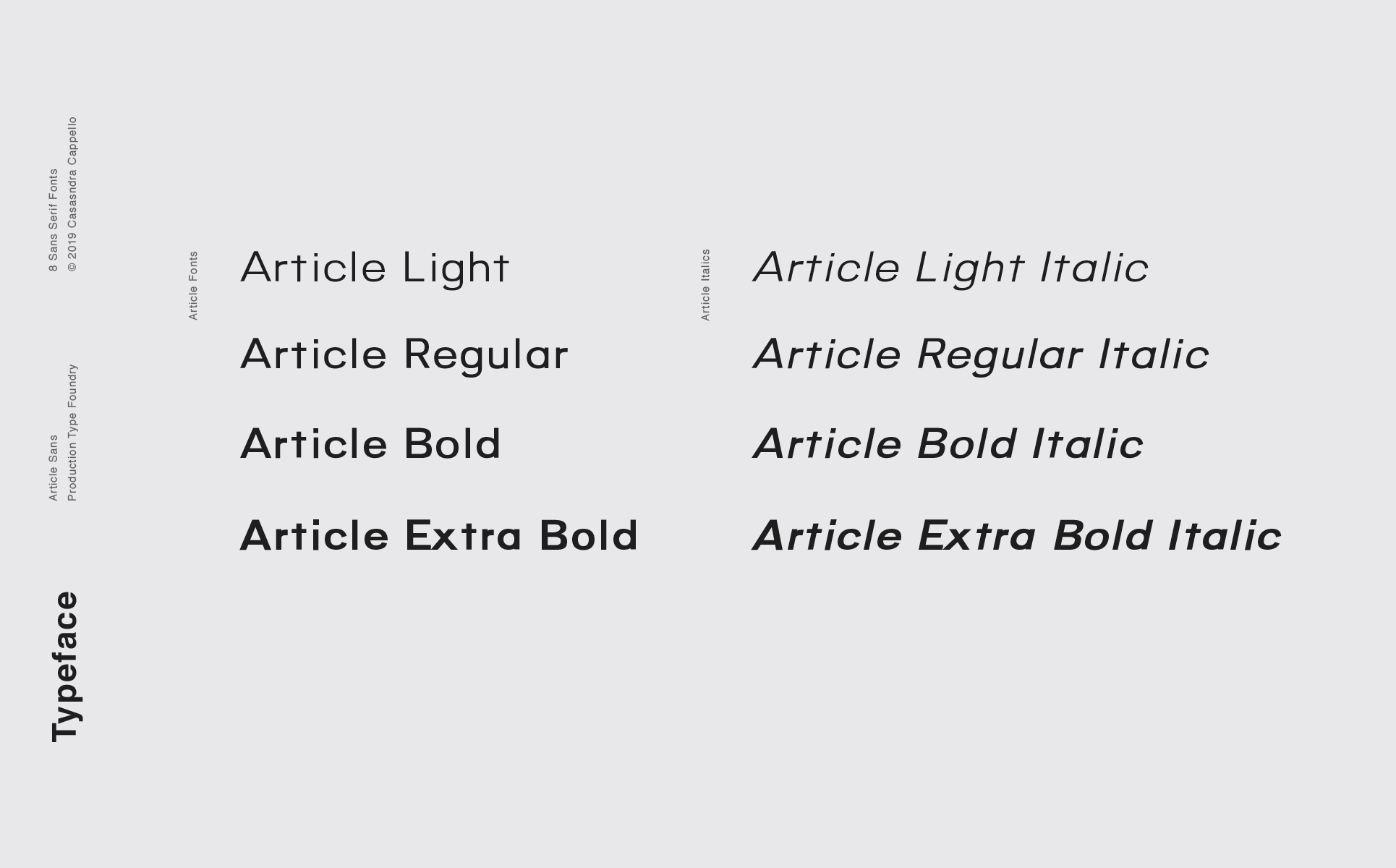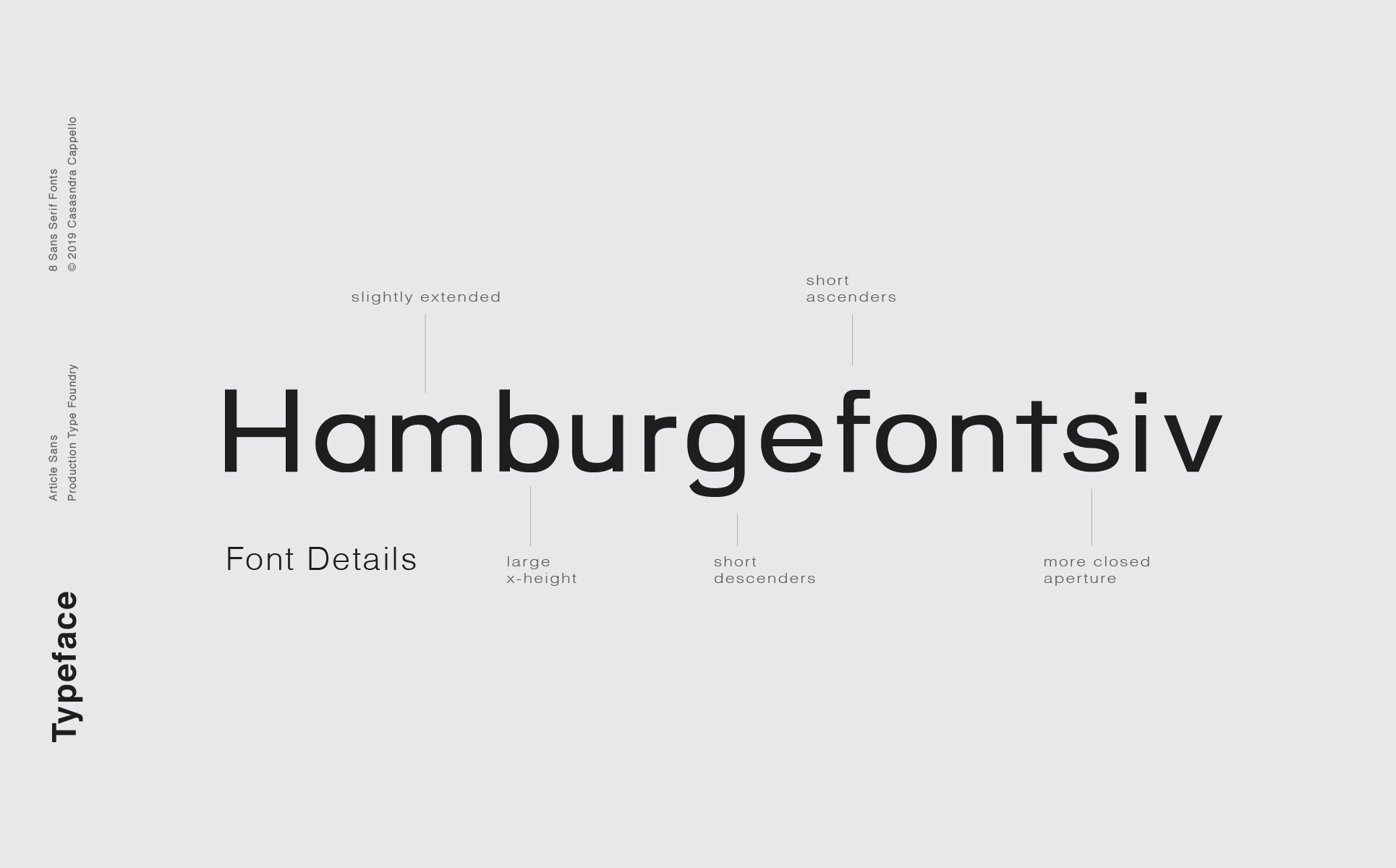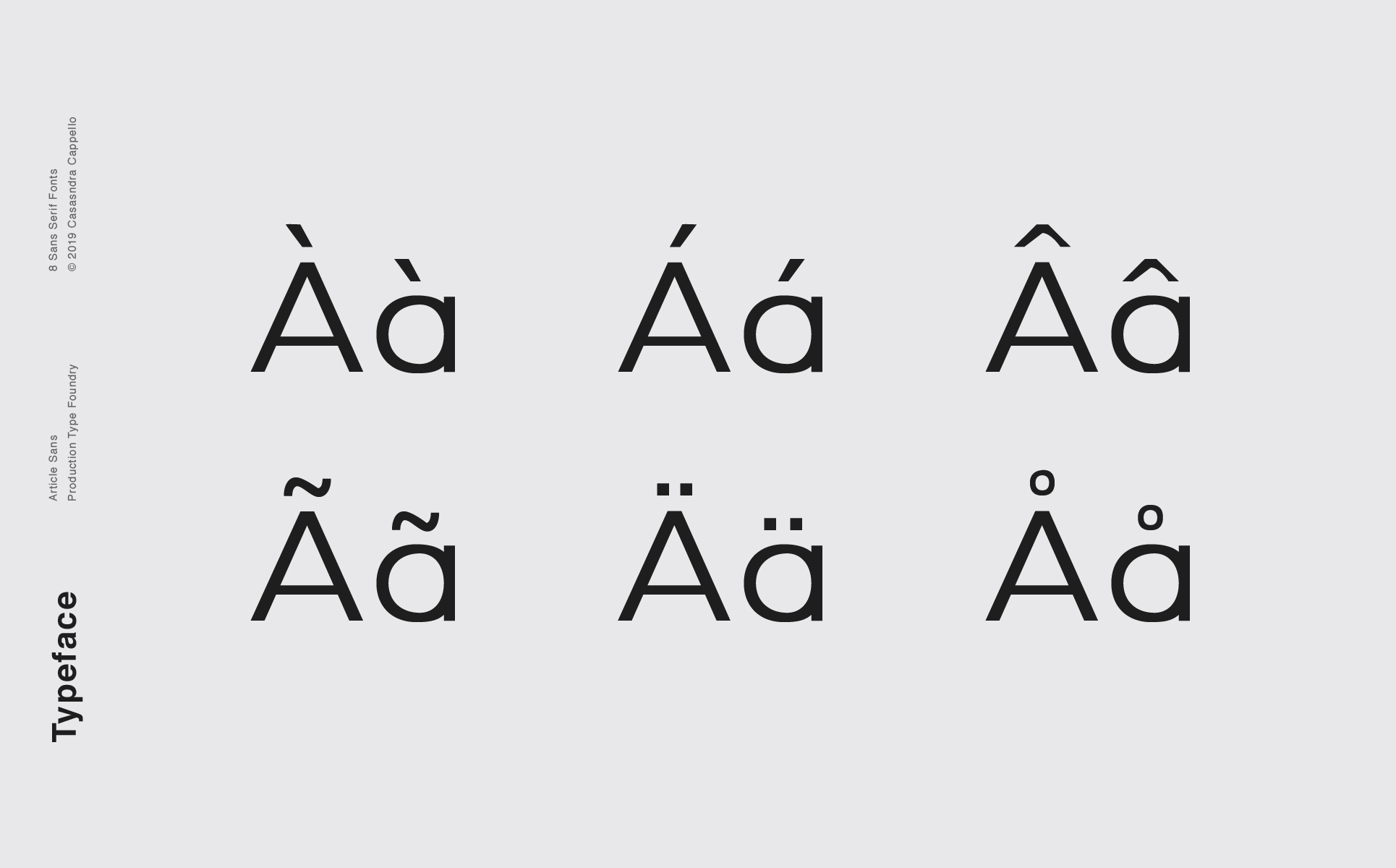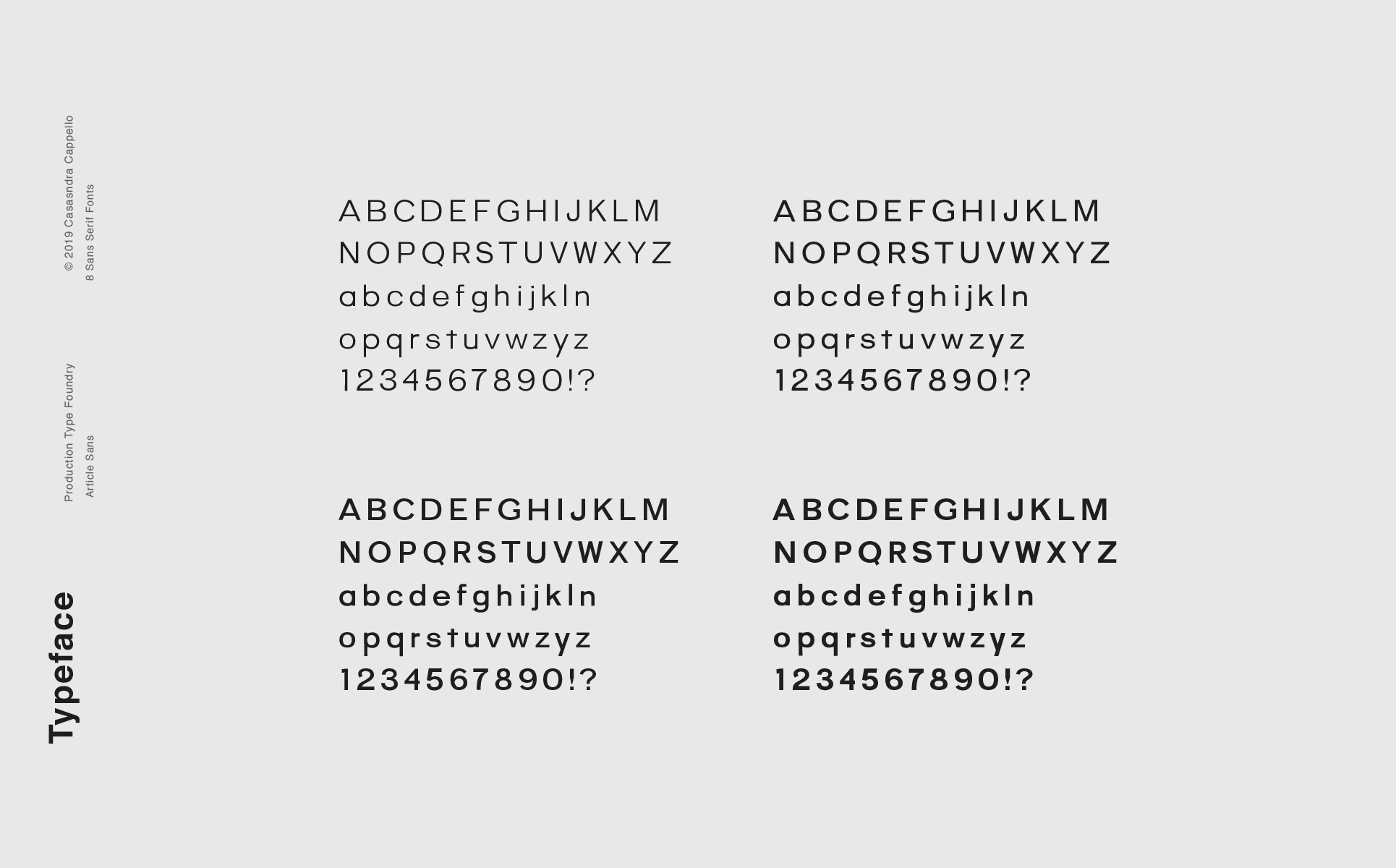
Article - A Geometric Typeface Font
Article is a modern, geometric, sans serif typeface. It has a little bit of personality and can be used for both headers and body copy. This font family includes all Latin characters (including accents), numbers, special characters, and punctuation.
Article includes eight fonts in OTF format: four weights and four italics.